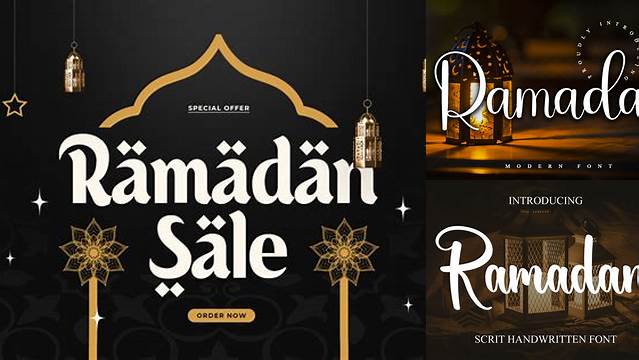
Ramadan Fonts: Free Downloads For Festive Designs
Ramadan is a special time of year, and if you're working on any designs for the occasion, having the right fonts can really make a difference. Finding a great font ramadan free download option can add that perfect festive touch to your projects, whether they're social media posts, greeting cards, or even website banners. In this article, we'll explore a bunch of awesome font ramadan free download resources and tips to help you create stunning Ramadan-themed designs. Let's dive in, guys!
1. Exploring Traditional Arabic Calligraphy Fonts
When it comes to Ramadan, traditional Arabic calligraphy fonts are a classic choice. These fonts evoke a sense of heritage and spirituality, perfectly capturing the essence of the holy month. A good font ramadan free download in this category can include styles like Kufic, Naskh, and Thuluth. Imagine using these elegant fonts on invitations for Iftar gatherings or to create beautiful Quran verses for sharing online. To get the most out of these fonts, consider pairing them with simple backgrounds and complementary color schemes. Also, ensure the font ramadan free download you choose is legible and scales well for both digital and print use. Remember, the goal is to enhance your message, not overshadow it with overly ornate designs. You can find many font ramadan free download options that offer various weights and styles, allowing you to adapt them to different design needs. Always check the licensing terms to ensure you can use the font for your intended purposes. Websites like Fontspace and Dafont often have a wide selection of Arabic calligraphy fonts that are available for free download. Using a font ramadan free download like this can really elevate your Ramadan designs, giving them an authentic and respectful feel. When selecting a font, also think about the overall tone and message you want to convey. A more formal calligraphy style might be suitable for religious content, while a slightly modern twist could work well for promotional materials. By carefully choosing and using traditional Arabic calligraphy fonts, you can create designs that are both beautiful and meaningful.
2. Modern Arabic-Inspired Fonts for Ramadan
If you're looking for something a bit more contemporary, modern Arabic-inspired fonts are an excellent choice. These fonts blend traditional elements with a sleek, updated aesthetic, making them perfect for a variety of Ramadan-themed projects. A great font ramadan free download in this category might feature clean lines, geometric shapes, or a simplified take on classic Arabic letterforms. These fonts work well for social media graphics, website headers, and even branding materials for Ramadan events. When using a font ramadan free download that's modern, consider pairing it with bold colors and dynamic layouts to create eye-catching designs. Make sure the font ramadan free download you pick is versatile enough to be used in different sizes and contexts. You want something that looks good on both a large poster and a small icon. Websites like Behance and Creative Market often showcase designers who create unique Arabic-inspired fonts, some of which are available for free download. Always check the usage rights to make sure you can use the font ramadan free download for commercial purposes if needed. One of the key advantages of modern Arabic-inspired fonts is their ability to appeal to a wider audience. They bridge the gap between tradition and modernity, making your designs accessible and engaging. Experiment with different font pairings to find the perfect combination for your project. A modern Arabic-inspired font ramadan free download can be paired with a simple sans-serif font for a clean and balanced look. By carefully selecting and incorporating these fonts, you can create Ramadan designs that are fresh, stylish, and relevant.
3. Script Fonts: Adding Elegance to Ramadan Designs
Script fonts can add a touch of elegance and sophistication to your Ramadan designs. These fonts mimic the fluidity of handwriting, making them ideal for creating a personal and inviting feel. A beautiful font ramadan free download in the script category can be used for greeting cards, invitations, and even website banners. Imagine using a flowing script font to write "Ramadan Kareem" on a festive e-card. When choosing a font ramadan free download script font, pay attention to its readability. While elegance is important, you also want to ensure your message is clear and easy to understand. Pair your script font with a simple, clean font for body text to create a balanced design. Websites like Font Squirrel and Google Fonts offer a variety of script fonts that are available for free download. Always check the licensing terms to ensure you can use the font ramadan free download for your intended projects. Using a script font can instantly elevate the look and feel of your Ramadan designs. It adds a touch of personality and warmth, making your message more engaging. Consider using different weights and styles of script fonts to create visual interest. A bolder script font can be used for headings, while a lighter script font can be used for subheadings. When selecting a font ramadan free download, think about the overall tone and style you want to convey. A more formal script font might be suitable for elegant invitations, while a more playful script font could work well for social media graphics. By carefully choosing and using script fonts, you can create Ramadan designs that are both beautiful and memorable.
4. Display Fonts: Making a Bold Statement
Display fonts are designed to grab attention and make a bold statement. These fonts are perfect for headlines, titles, and other prominent design elements in your Ramadan projects. A striking font ramadan free download in the display category can instantly elevate your designs, making them more visually appealing and memorable. Consider using a bold display font for the title of your Ramadan event poster or the header of your website. When choosing a font ramadan free download display font, make sure it aligns with the overall tone and style of your design. A modern, geometric display font might be suitable for a contemporary Ramadan campaign, while a more ornate display font could work well for a traditional celebration. Pair your display font with a simpler, more readable font for body text to ensure a balanced design. Websites like Creative Market and Envato Elements offer a wide variety of display fonts, some of which are available for free download. Always check the licensing terms to ensure you can use the font ramadan free download for your intended purposes. Using a display font effectively can make your Ramadan designs stand out from the crowd. It allows you to convey your message with impact and create a strong visual presence. Experiment with different colors, sizes, and placements to find the perfect combination for your project. A well-chosen font ramadan free download display font can be the key to creating eye-catching and memorable Ramadan designs. When selecting a font, also think about the target audience and the overall message you want to convey. By carefully choosing and using display fonts, you can create Ramadan designs that are both visually stunning and highly effective.
5. Sans-Serif Fonts: Clean and Modern Options
Sans-serif fonts are known for their clean, modern, and minimalist aesthetic. These fonts are a versatile choice for Ramadan designs, offering excellent readability and a contemporary feel. A great font ramadan free download in the sans-serif category can be used for body text, headings, and even logos. Imagine using a clean sans-serif font for the text on your Ramadan-themed website or the captions on your social media posts. When choosing a font ramadan free download sans-serif font, consider its weight and style. A lighter weight might be suitable for body text, while a bolder weight could be used for headings. Pair your sans-serif font with a complementary font for a balanced and visually appealing design. Websites like Google Fonts and Font Squirrel offer a wide variety of sans-serif fonts that are available for free download. Always check the licensing terms to ensure you can use the font ramadan free download for your intended projects. Using a sans-serif font can bring a sense of clarity and modernity to your Ramadan designs. It ensures that your message is easily readable and accessible to a wide audience. Experiment with different font pairings and sizes to find the perfect combination for your project. A well-chosen font ramadan free download sans-serif font can be the foundation of a successful Ramadan design. When selecting a font, also think about the overall tone and style you want to convey. By carefully choosing and using sans-serif fonts, you can create Ramadan designs that are both clean, modern, and effective.